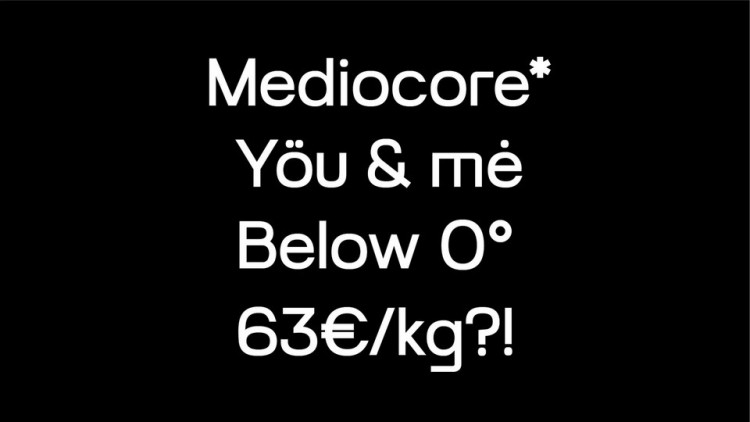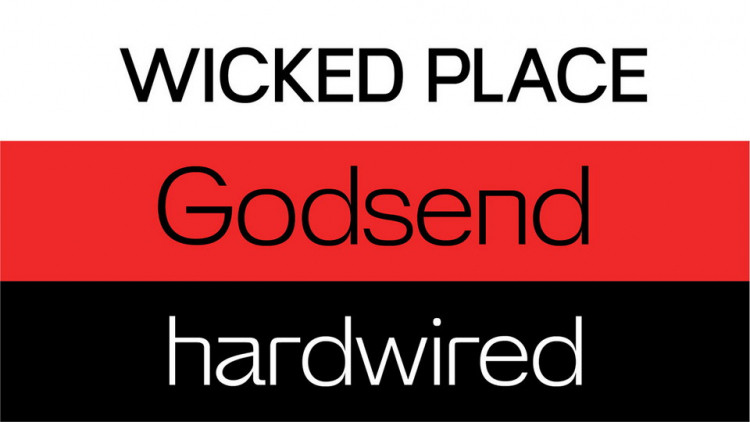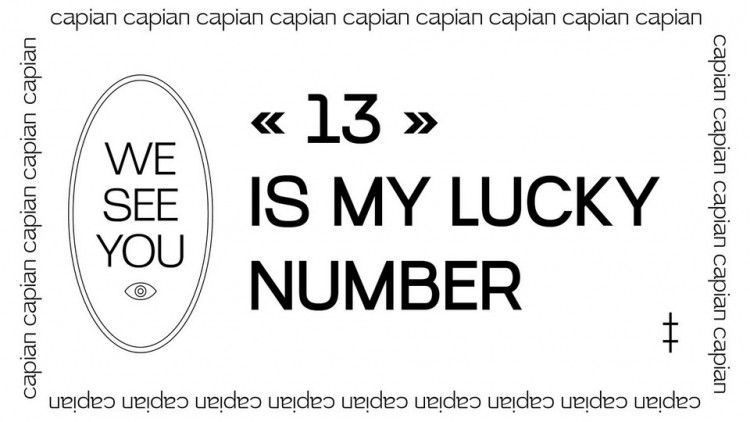
Capian Font
Capian Sans Serif Font
This font designed by Dániel Domonkos is a rich & elegant sans serif, that can be both an eye-catching display typeface and a clean & legible font for smaller text. It comes with two weights – Regular and Bold.
Capian is perfect for any display use. It could easily work for posters, signage, corporate as well as editorial design.